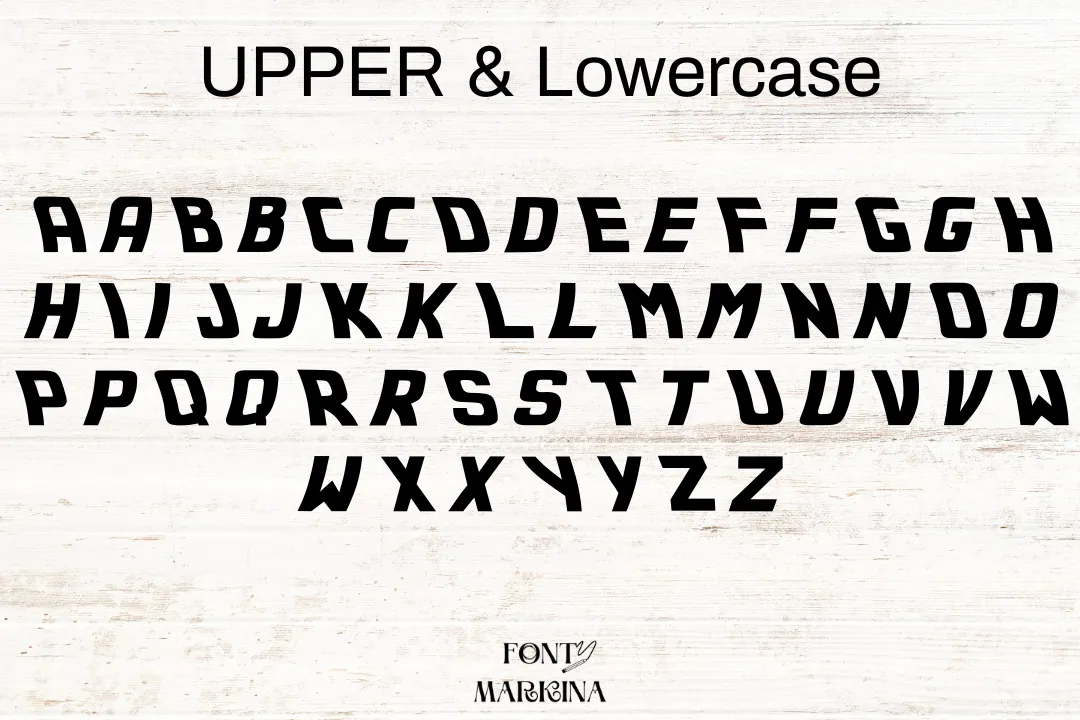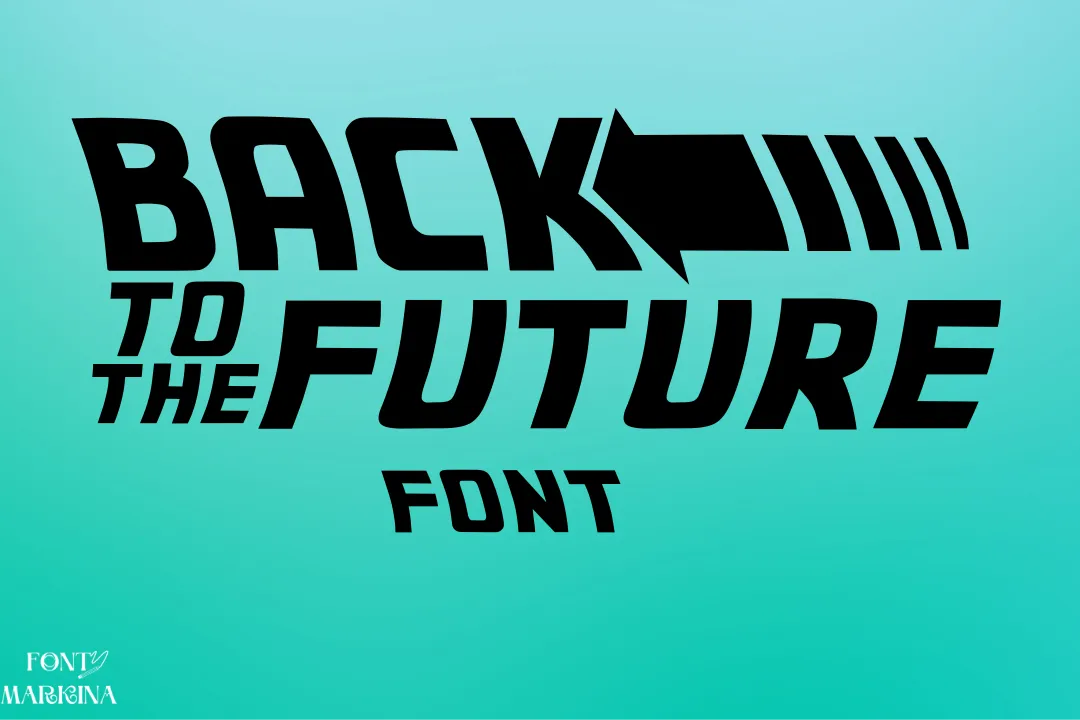
Here, we are consulting on a modern typeface with advanced and extraordinary features. This typeface is famous as the Back to the Future Font. Cyril Bourreau is the brilliant mind behind the creation of this family. Mainly, this texture is designed for the logo of a popular movie known by the name Back To The Future.
This family comes from the display typeface family but shifted into the logo typeface because of its use of the logo of the movie. Its alternative Batman Forever Font and Bertram font has the same look and style as this family.
Uses of Back To The Future Font
This texture has more classic and advanced uses as compared to all other related typefaces. Frequently, this font family is used for the logos of different institutions and organizations. In the current days, the use of this family is increasing in various fields. For more strong relationships, use Hello Kitty Font and Astro Creep Font which are the alternative to this family.
All official documents and records can be done by using this font family. You can create all special types of signatures, secret tasks, art channels, and much more. This amazing texture is also useful for different purposes in social media posts.
Where we can use the Back to the Future Font?
This typeface is used for a variety of locations like vehicle wraps, poster designs, transport systems, logos, and much more.